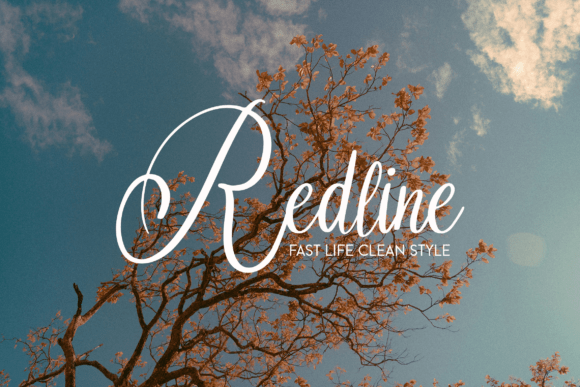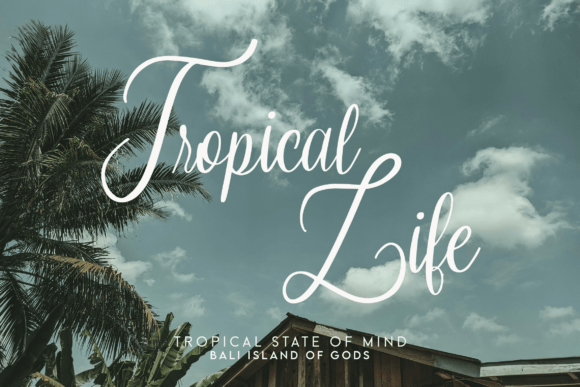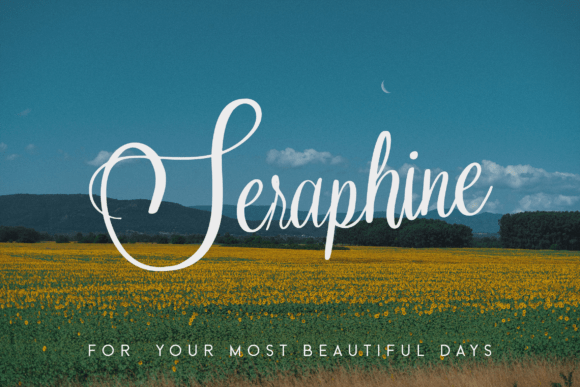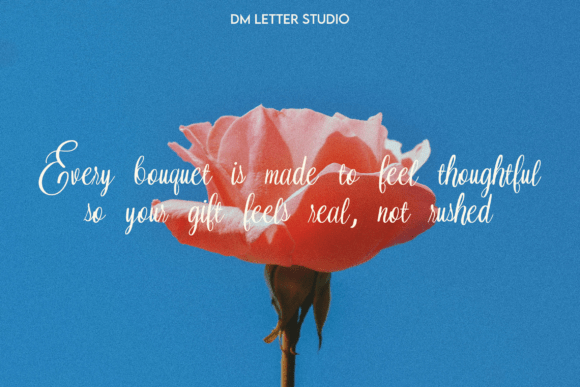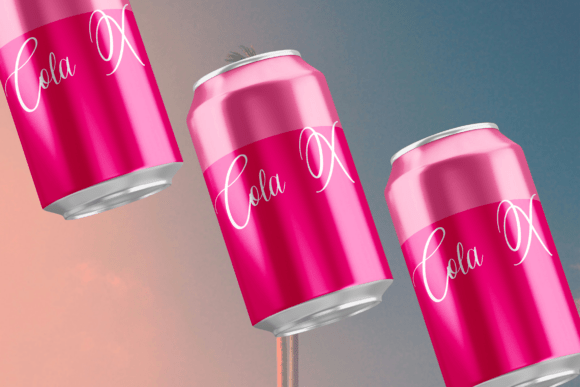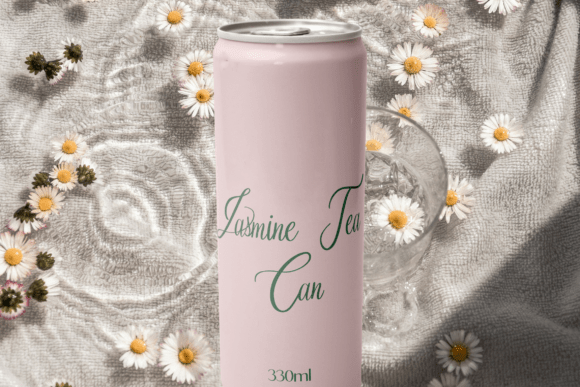
Introduction to Nuptalia Font
Nuptalia is a romantic handwritten script font with smooth, flowing strokes that feel personal and heartfelt.
Inspired by natural pen movement, it brings warmth and elegance without looking overly formal The lines stay clean and balanced, so text remains readable at small sizes and expressive in larger statements.
Key Features of Nuptalia Font